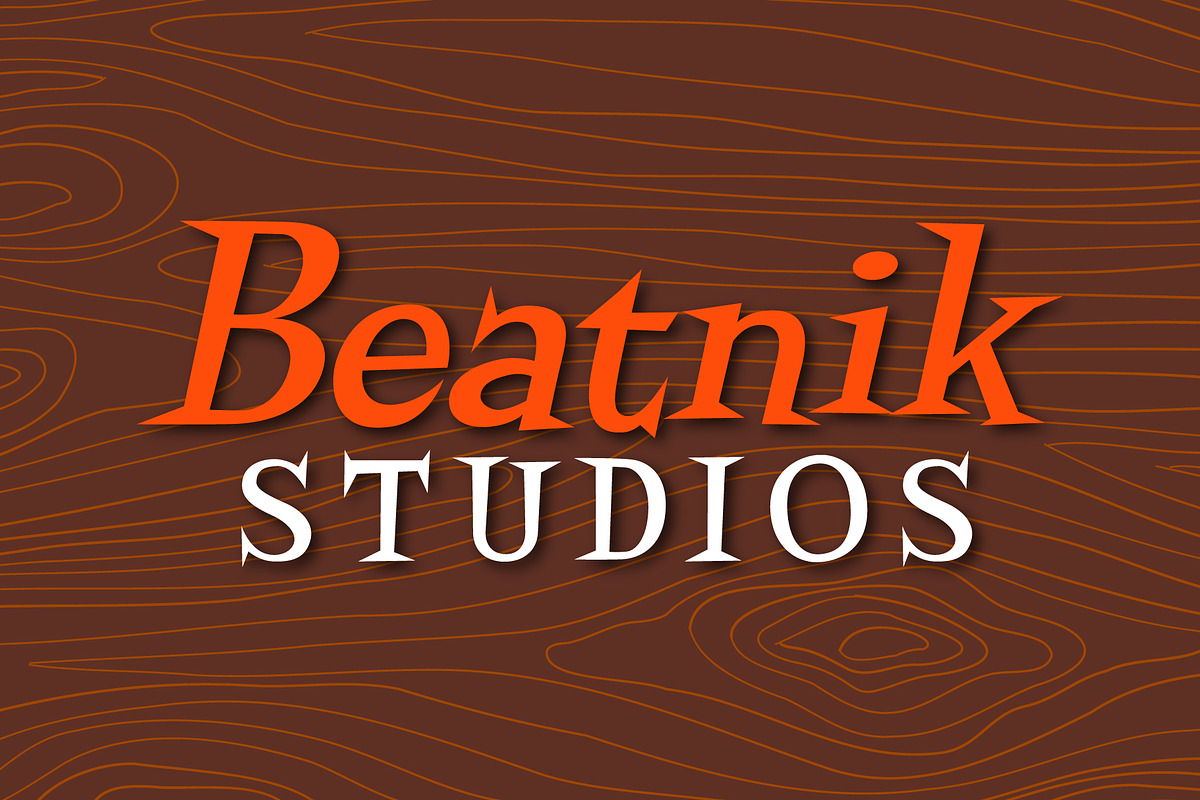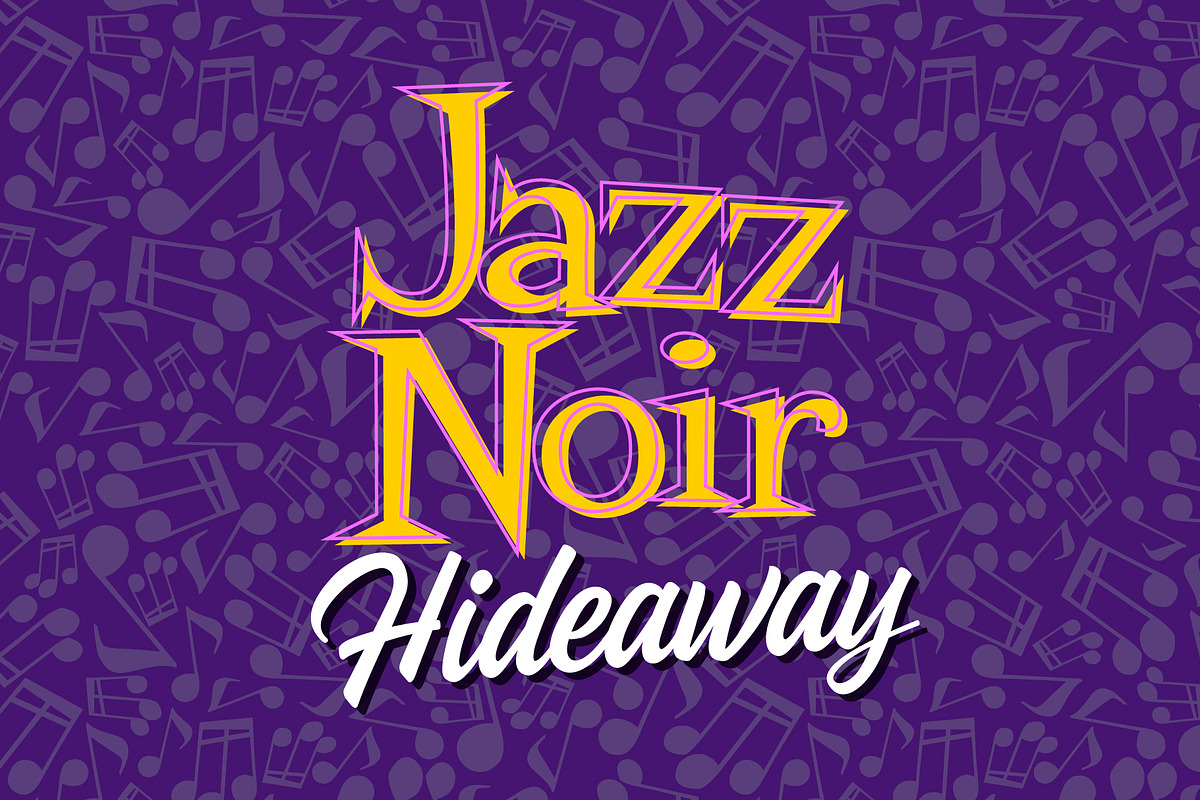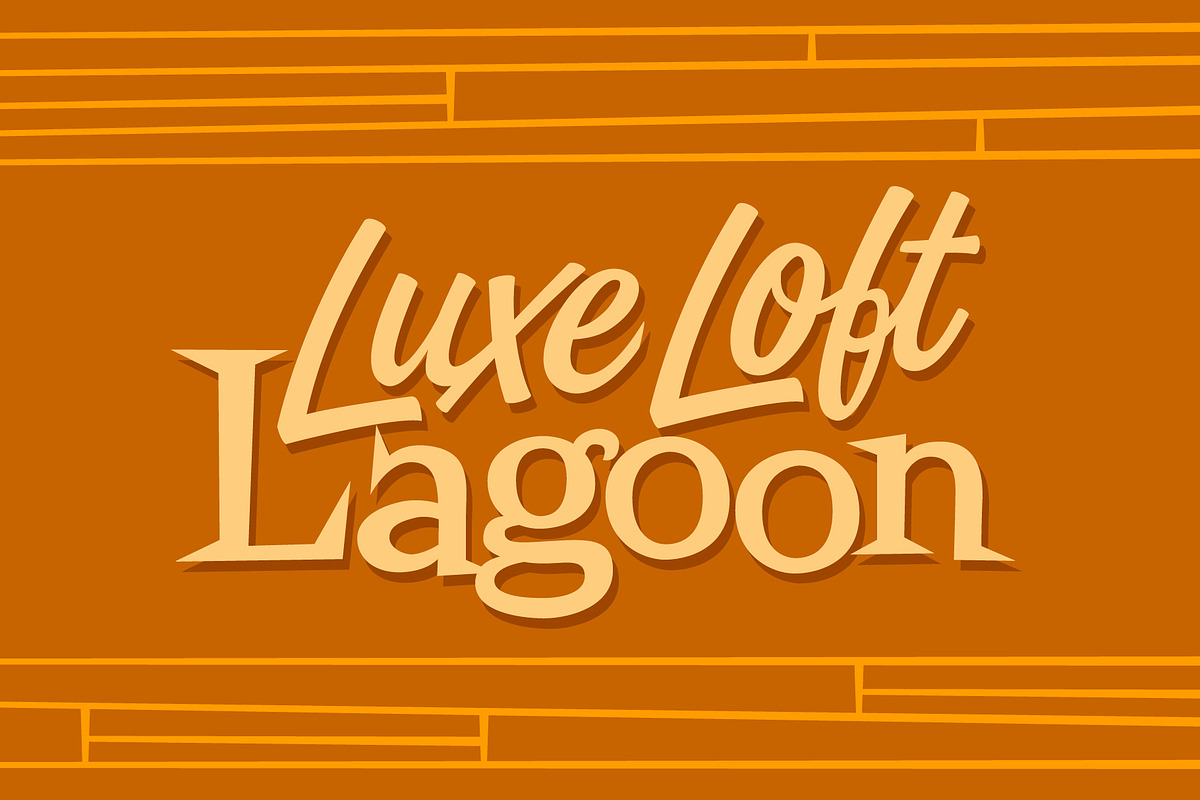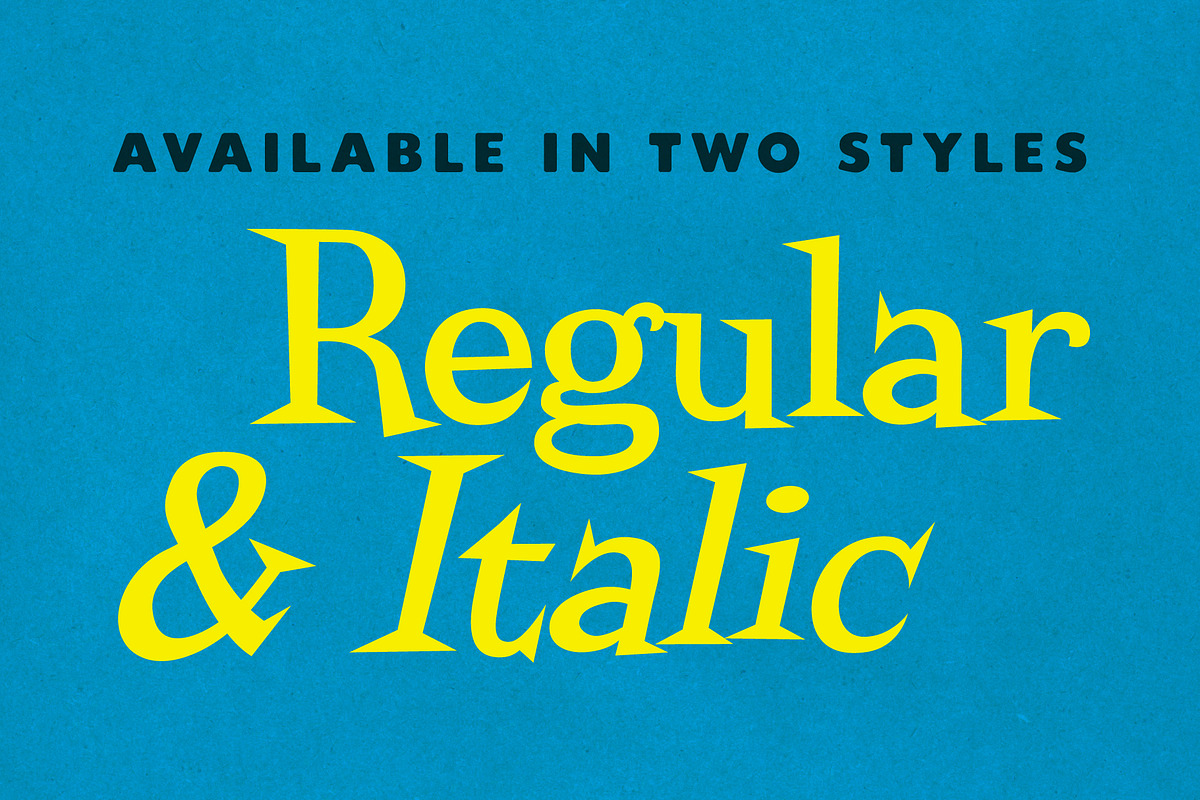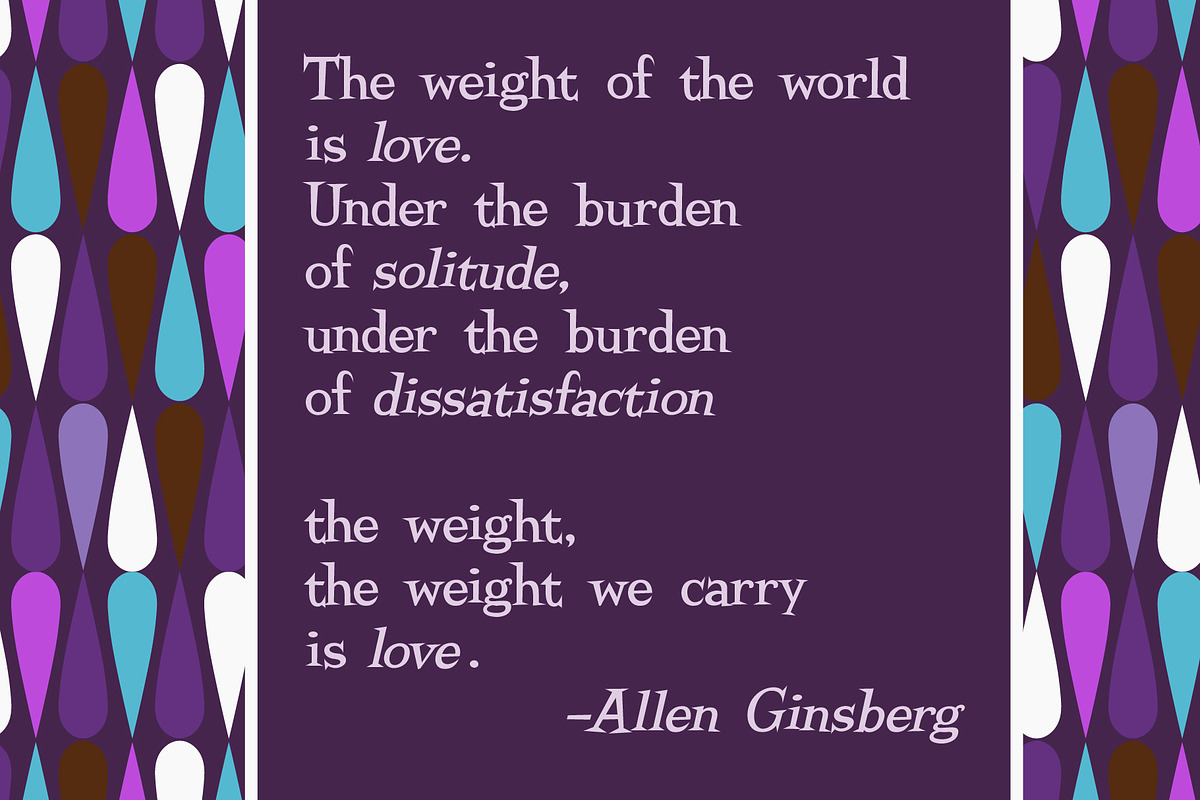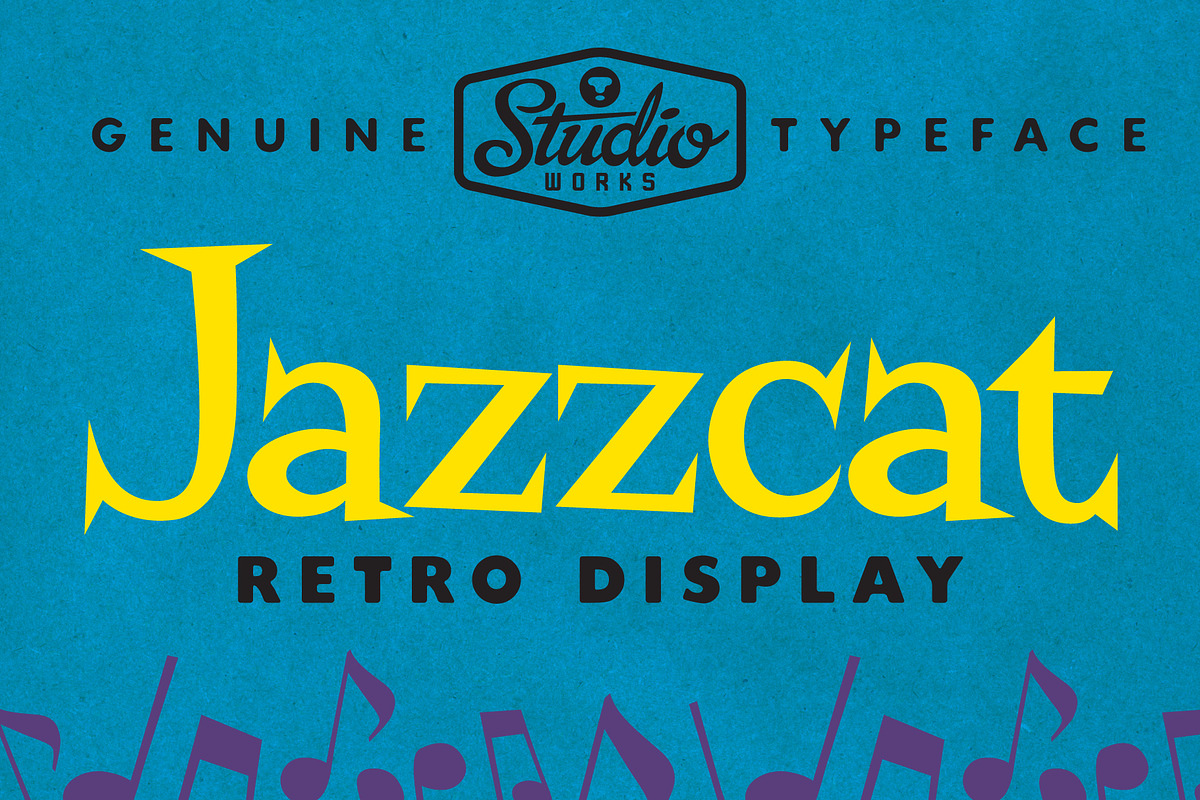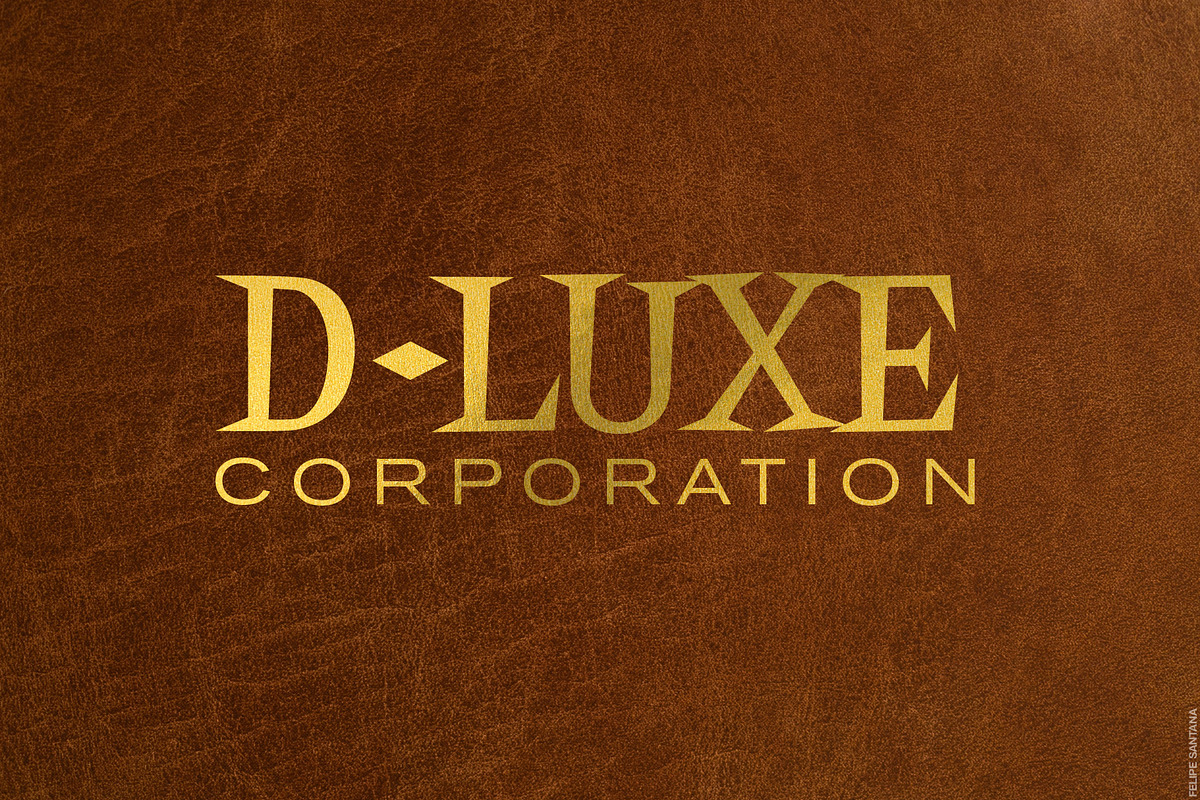
Jazzcat | Retro Display Type!
Counting off with StudioWorks is •• J A Z Z C A T •• — a cool, retro display typeface with loads of groove!
Composed in the style of mid-century modern serifs, Jazzcat is a nod to the hip vibes of latin jazz culture. Jazzcat's low contrast tapered strokes, pointed serifs and dancing baselines make it the legit choice for reviving vintage themes in logos, ad signage and publications.
- Regular and Italic type styles
Use Jazzcat to soften the soulless, hard-edged serifs of traditional design projects with some swingin', carefree fun!